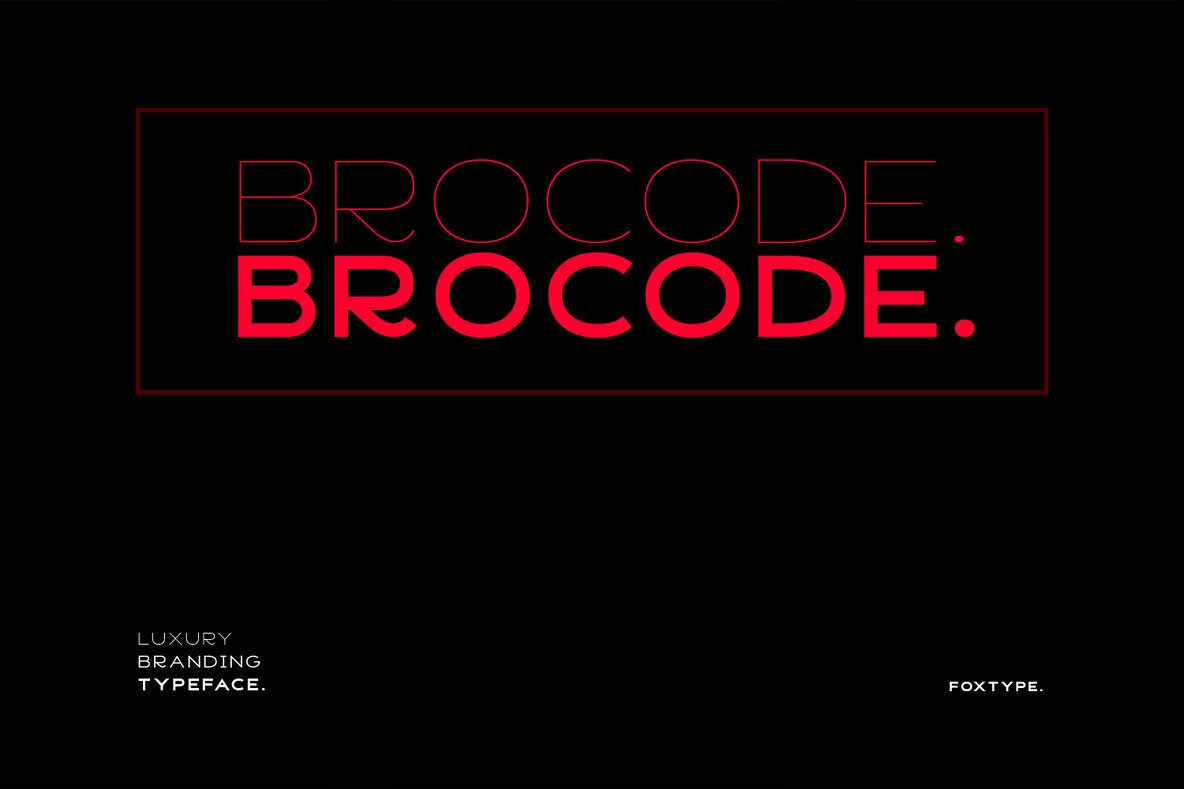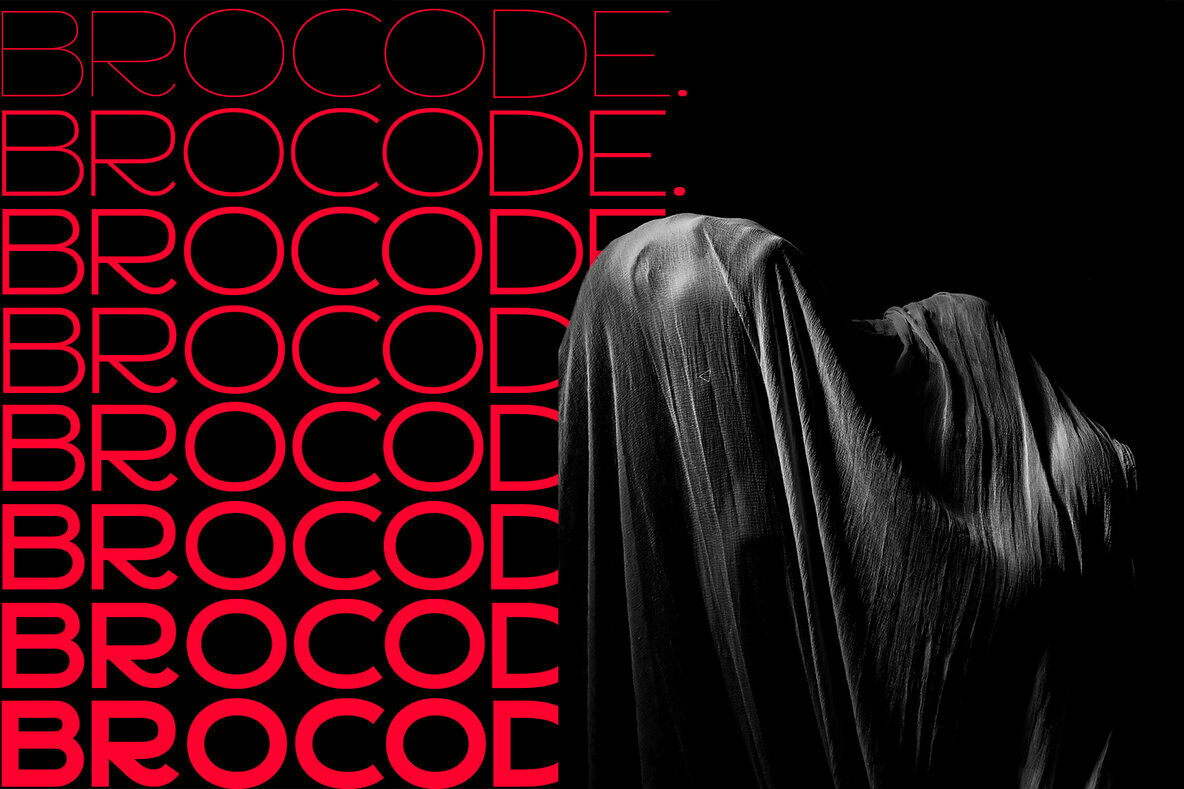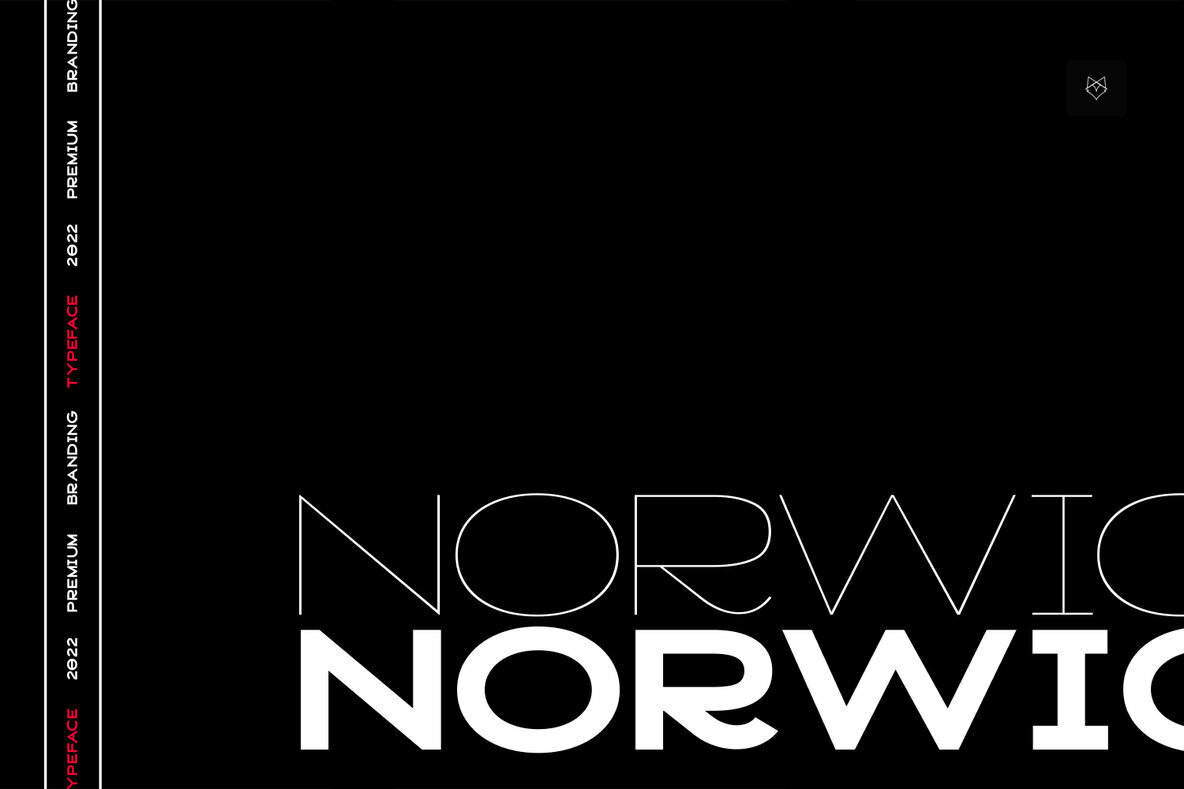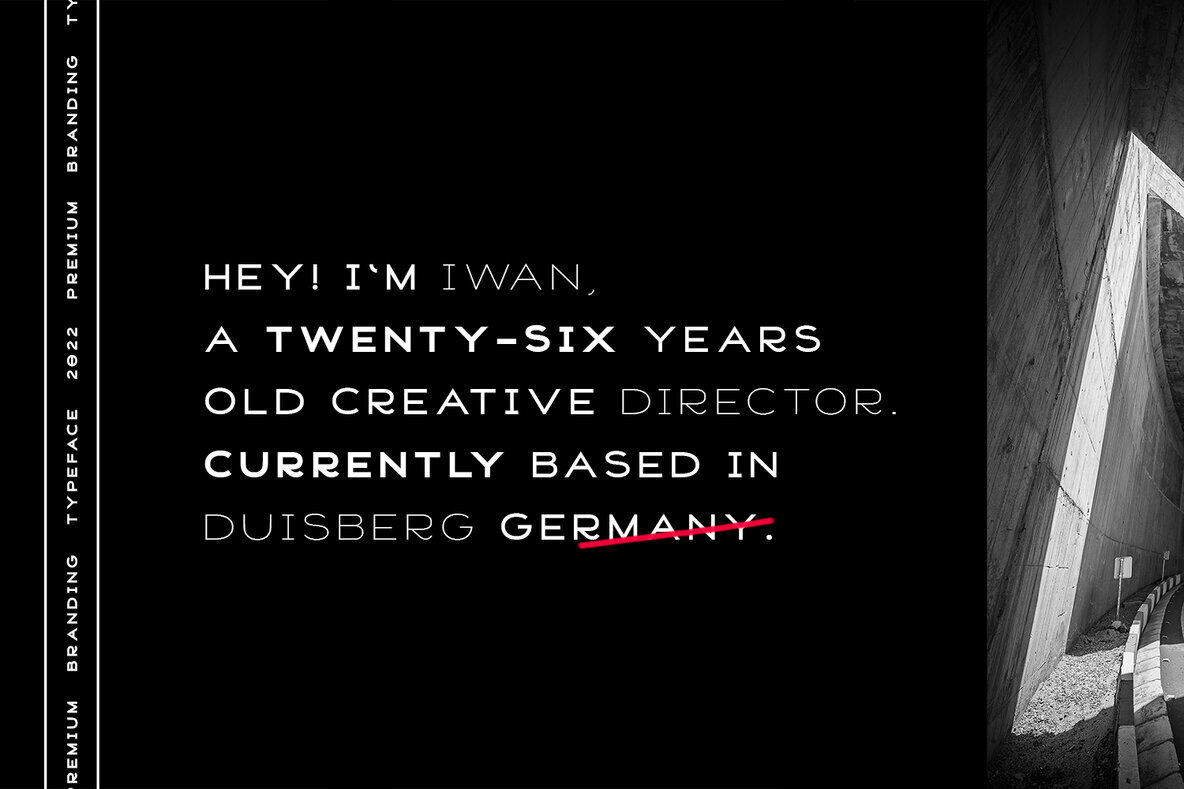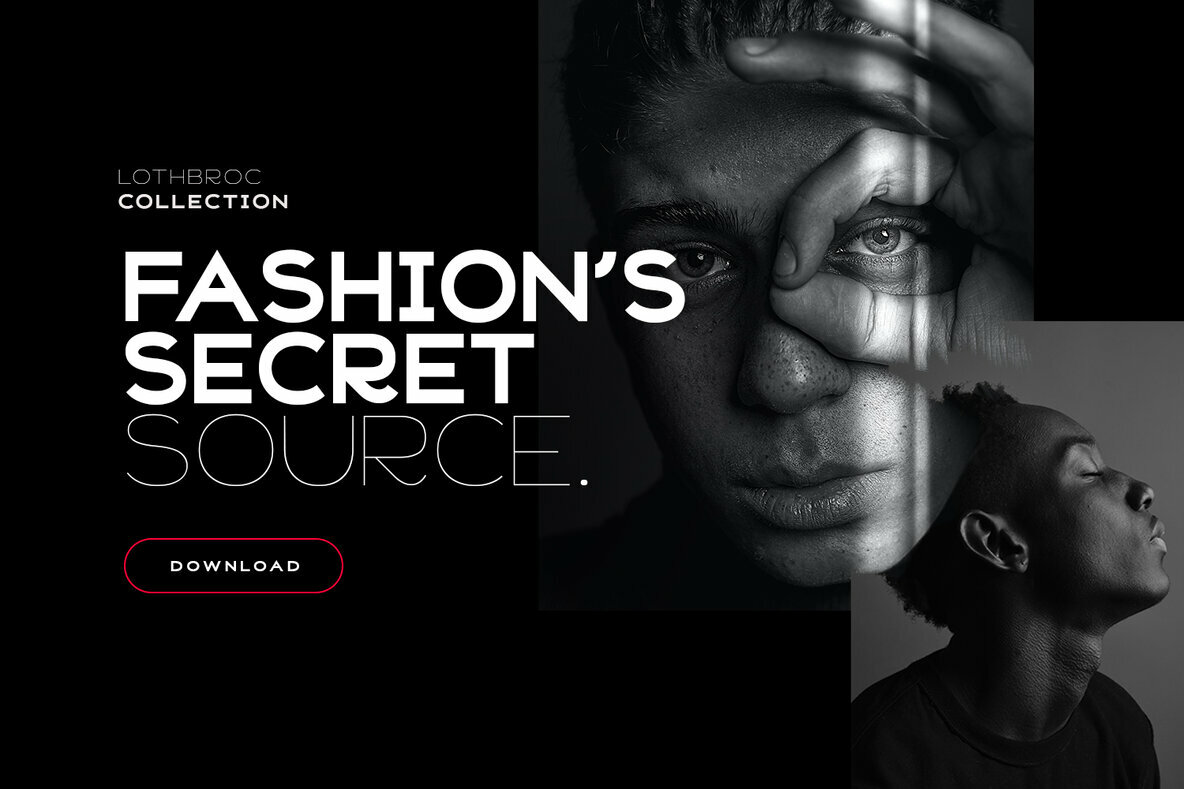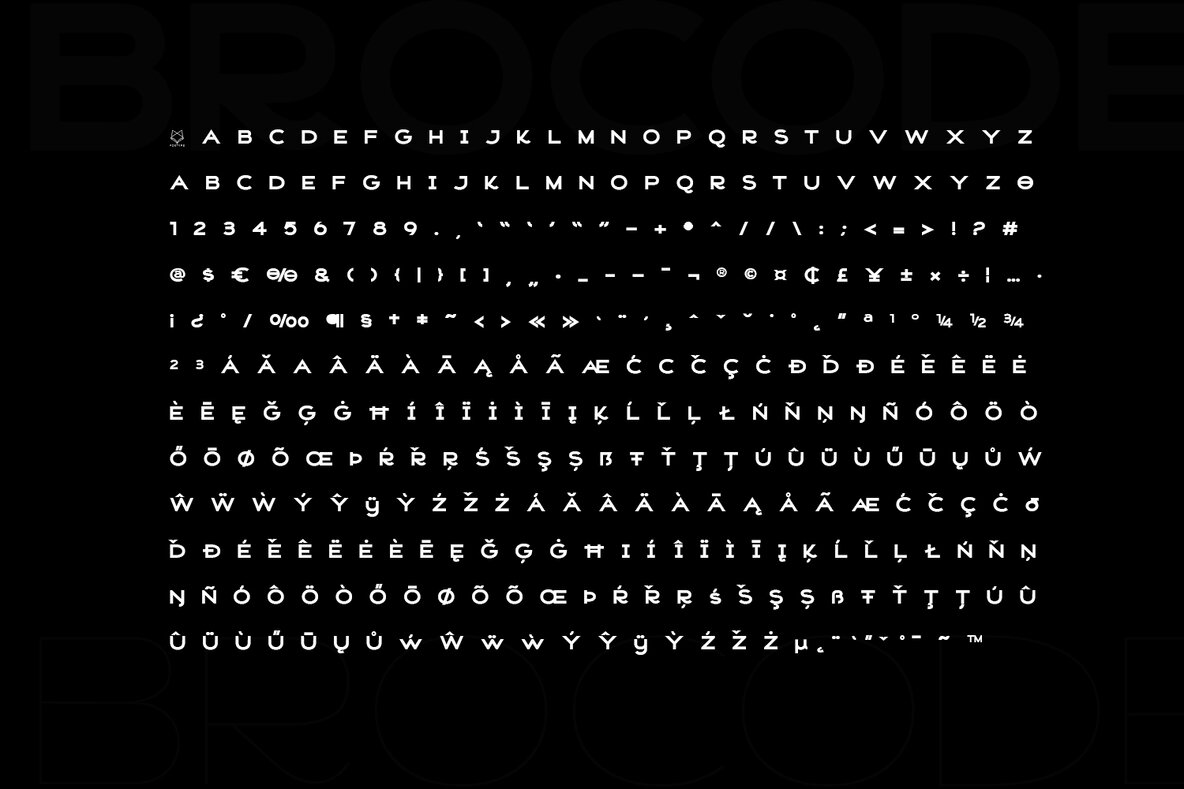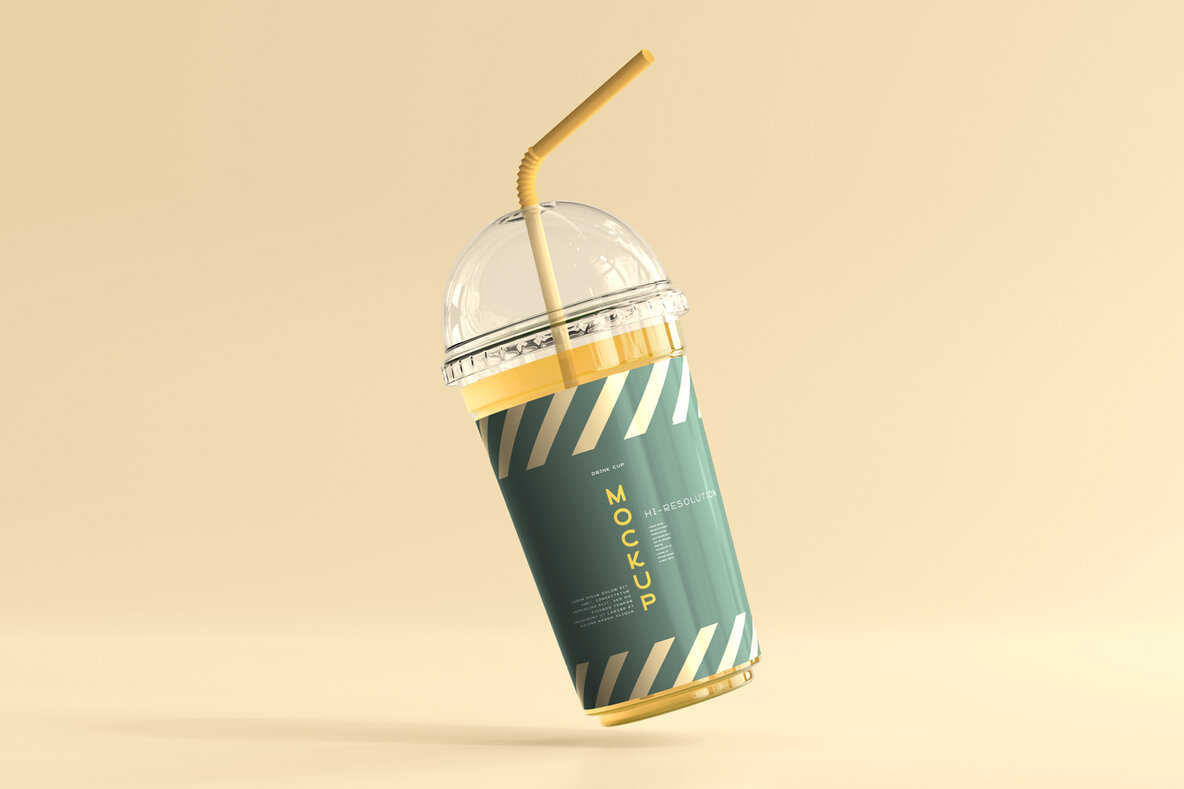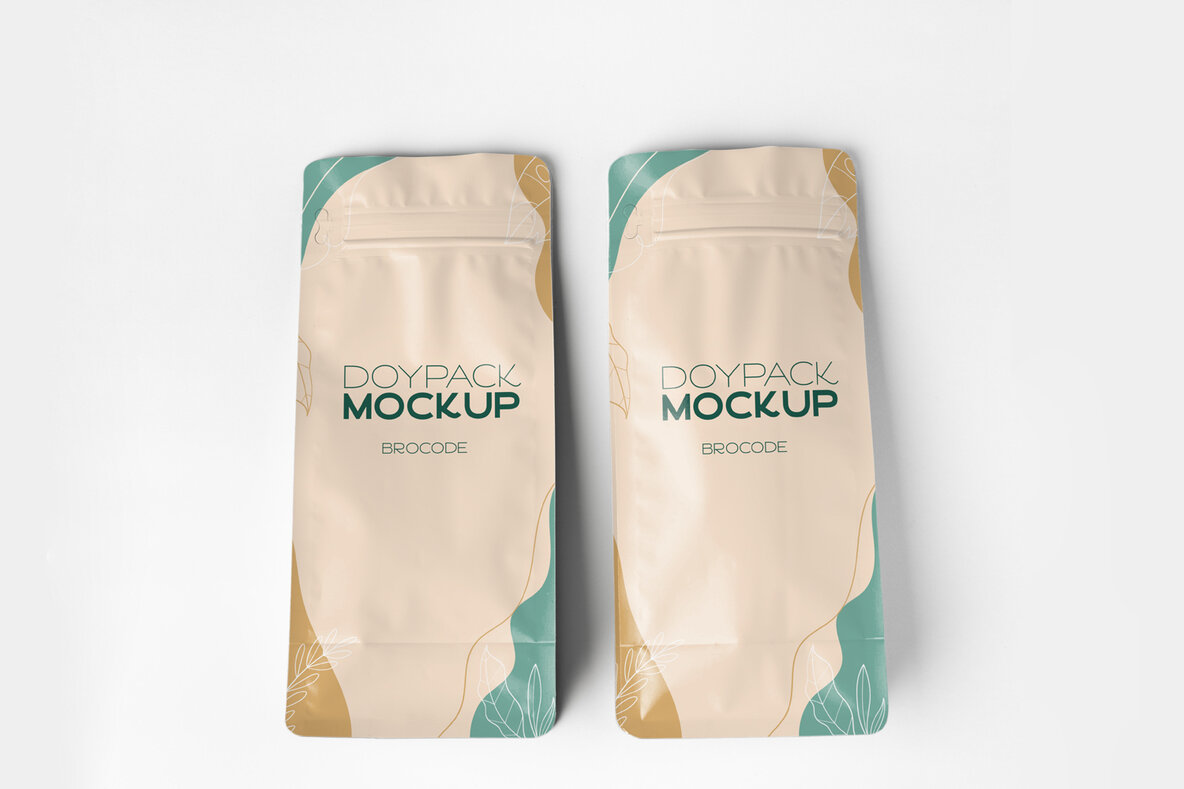
Brocode Display: A Modern Typeface for Versatile Applications
Brocode Display by FoxType Co is an elegant and modern typeface that excels in versatility. Designed for both large and small formats, it is ideal for branding, logos, headlines, and captions. This typeface offers a unique balance with strong capitals and smooth, open lowercase letters, making it readable yet stylish across various applications.
• 7 Weights – Cater to diverse design needs.
• Versatile Use – Suited for branding, headlines, and more.
• Readable Style – Combines minimalist warmth with quirky flair.